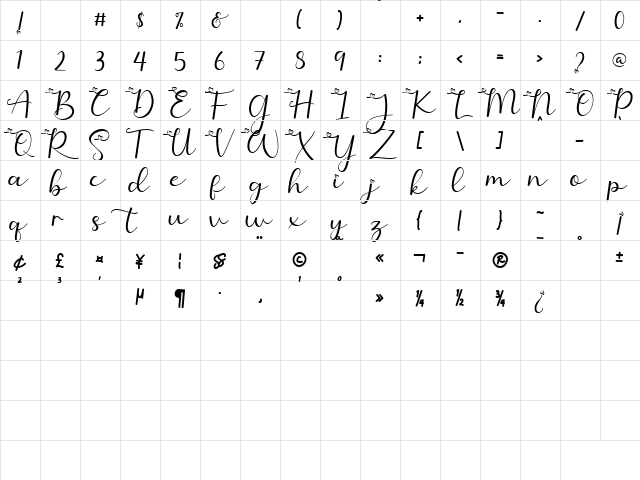
Valentine Soul Regular
Design Context for Valentine Soul Typeface
Valentine Soul is a composed and adaptable typeface that performs quietly and consistently across a wide range of design contexts.